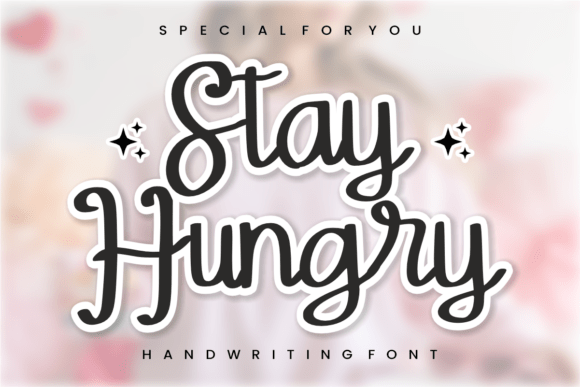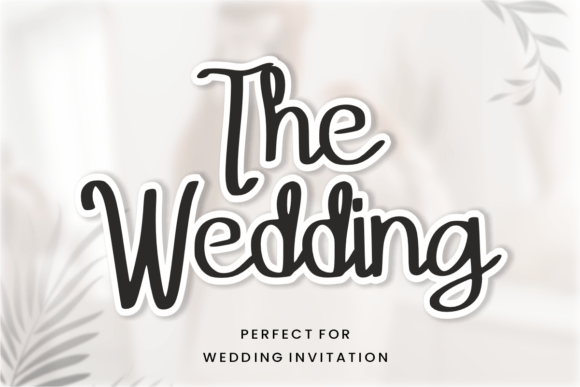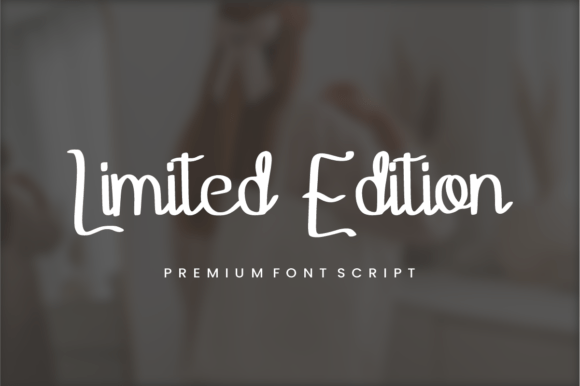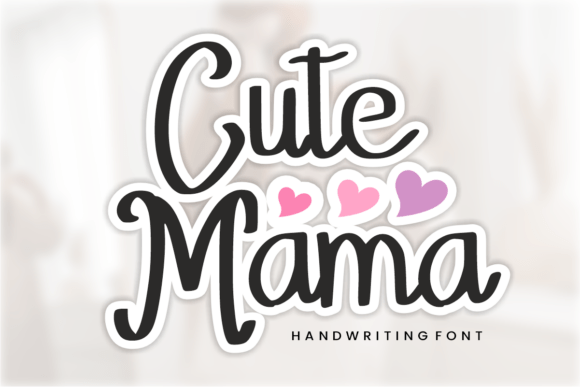
Cute Mama | A Playful Handwriting Font Celebrate the warmth of family and the joy of DIY with Cute Mama, a charming handwriting font designed to bring a touch of sweetness to every project.
This font captures the effortless flow of a marker pen, blending casual curves with a bold, legible weight that feels both modern and nostalgic Whether you are crafting personalized gifts for Mother’s Day, designing adorable nursery decor, or building a brand that feels approachable and kind, Cute Mama is your go-to companion.